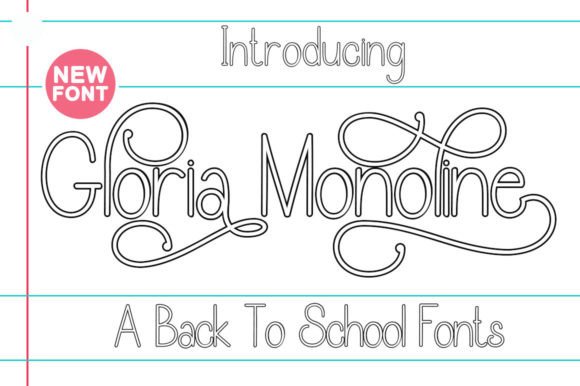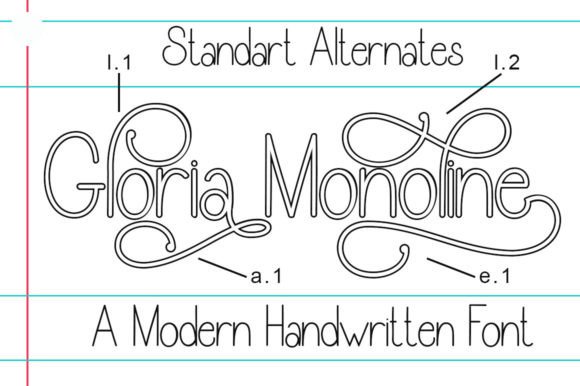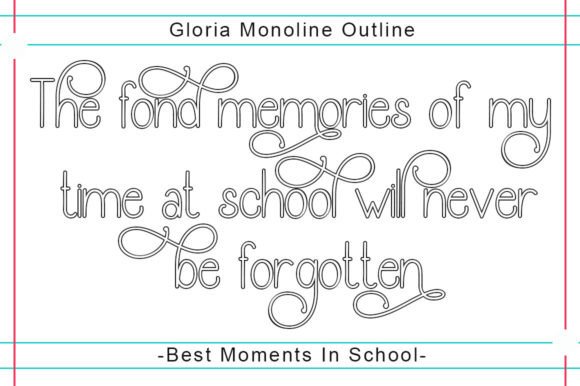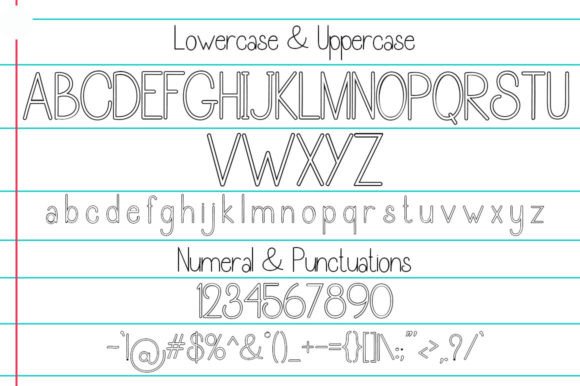
Gloria Monoline Outline Font
About the Gloria Monoline Outline Font
Introducing the Gloria Monoline Outline Font, a beautifully crafted typeface designed to elevate your creative projects. Write beautifully and neatly with this Gloria Monoline Outline font. It gives you the option to write beautiful and legible notes while maintaining a classic handwritten look. It is perfect for use in any note-taking app or computer.
Gloria Monoline Outline’s elegant, yet slightly informal style makes it ideal for headings, short paragraphs in invitations or greeting cards, and logos requiring a touch of handwritten charm. It works well for branding projects aimed at a sophisticated yet approachable audience, such as boutique shops, cafes, or stationery lines. Avoid using it for extensive body text or UI elements; its delicate outlines might become illegible at smaller sizes.
Pairing Gloria Monoline Outline with a clean sans-serif like Lato for body text provides a strong contrast and enhances readability. For a more playful feel, consider a script font like Pacifico for secondary elements. Conversely, a geometric sans-serif like Montserrat would create a modern, balanced look, highlighting Gloria Monoline’s refined character.
The font’s overall personality is sophisticated yet approachable, conveying both elegance and a friendly handwritten quality. It’s a versatile choice for projects needing a balance of refinement and approachability.
Gloria Monoline Outline Font Usage Examples
Gloria Monoline Outline Font Example